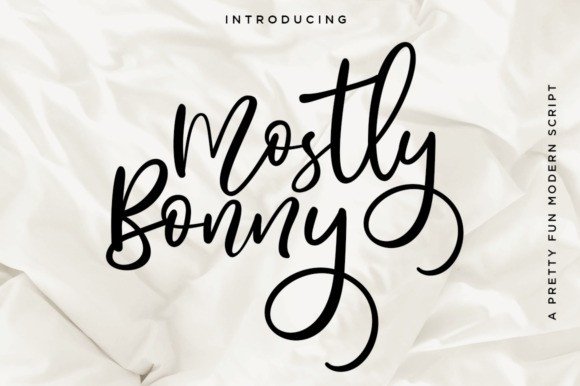
Mostly Bonny Script Font
Mostly Bonny Script Font is a modern calligraphy font. Here you will get a beautiful script font. a fun and beautiful handwritten typeface. This script is embellished and engaging, making it suitable for logotype and display designs. It’s designed by Haksen.
It’s a fun and playful script with gorgeous alternates. Get inspired by this fancy calligraphic script! Can be used for various purposes. Such as post, wedding invitations, brands, signatures, logos, t-shirts, labels, news, posters, etc.